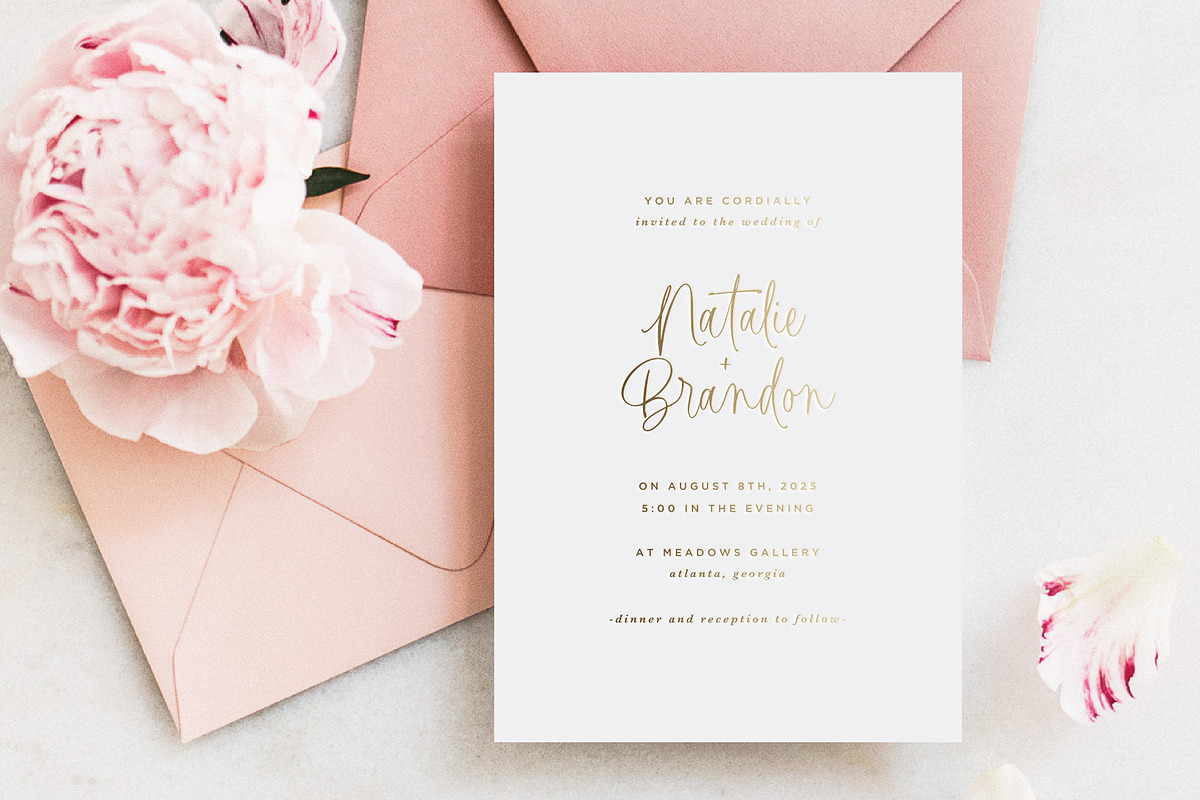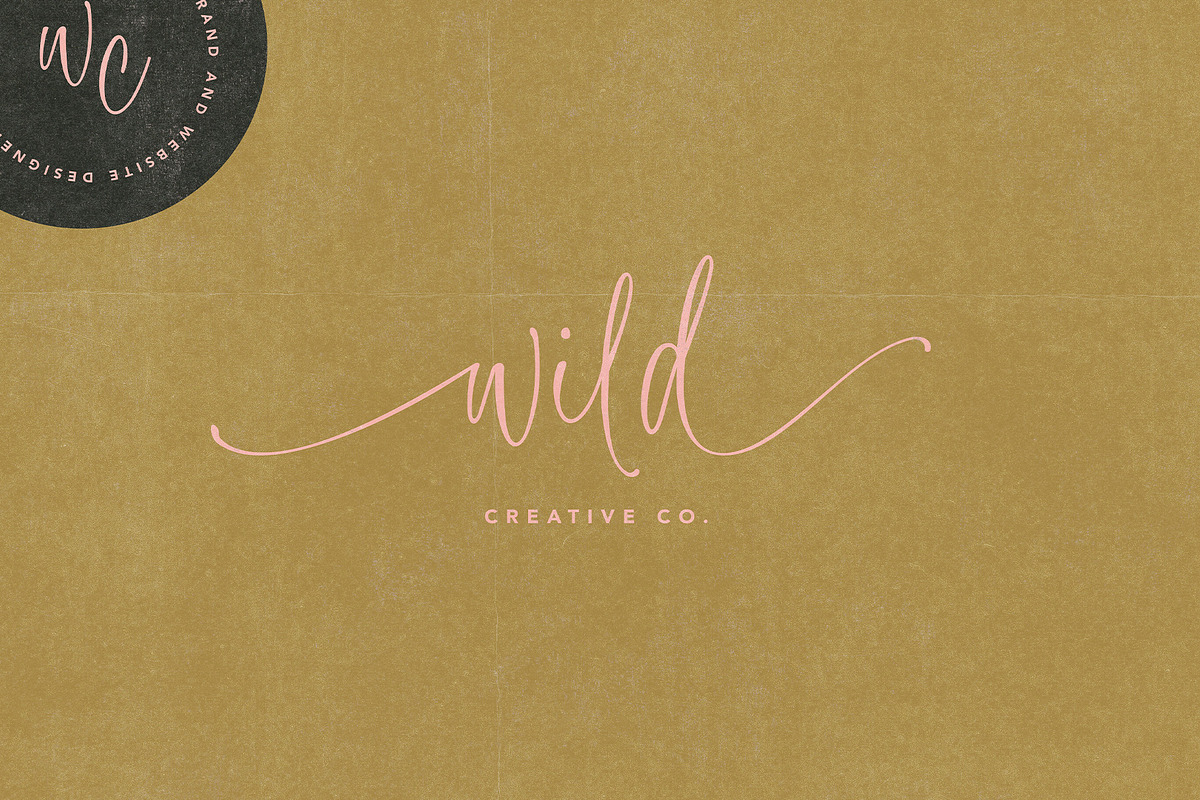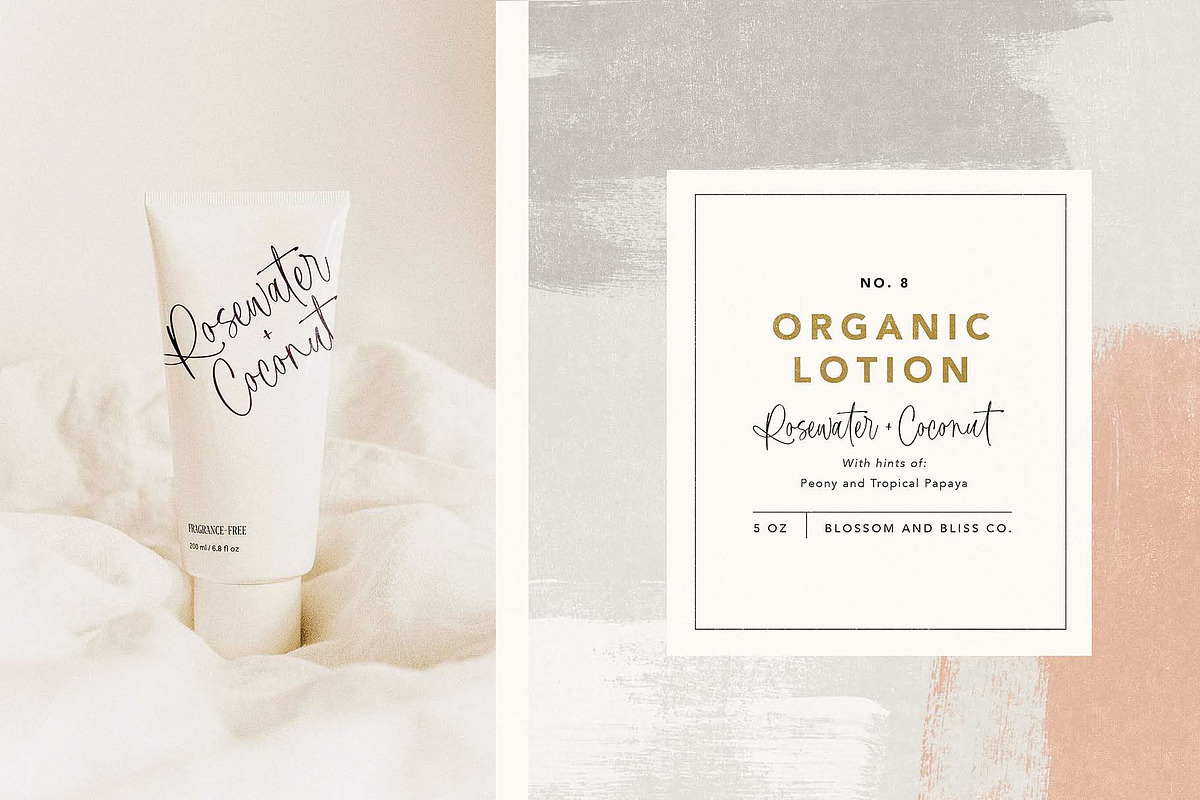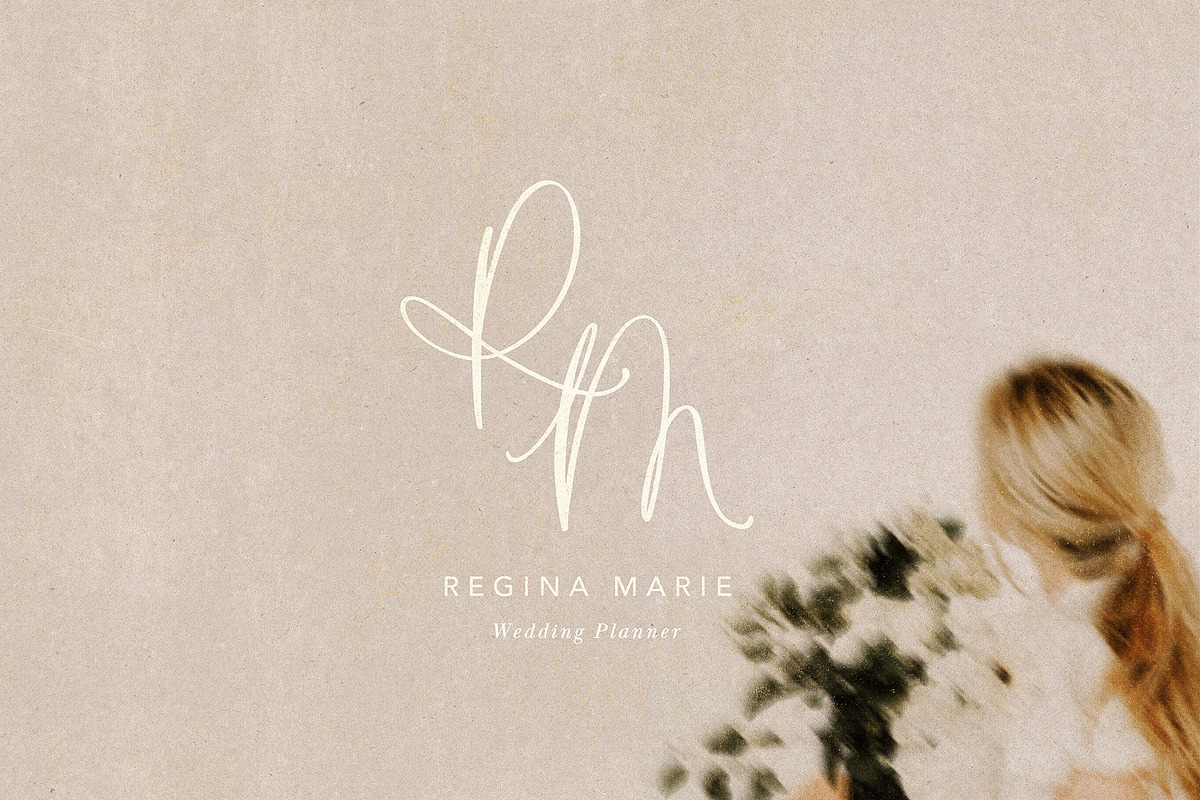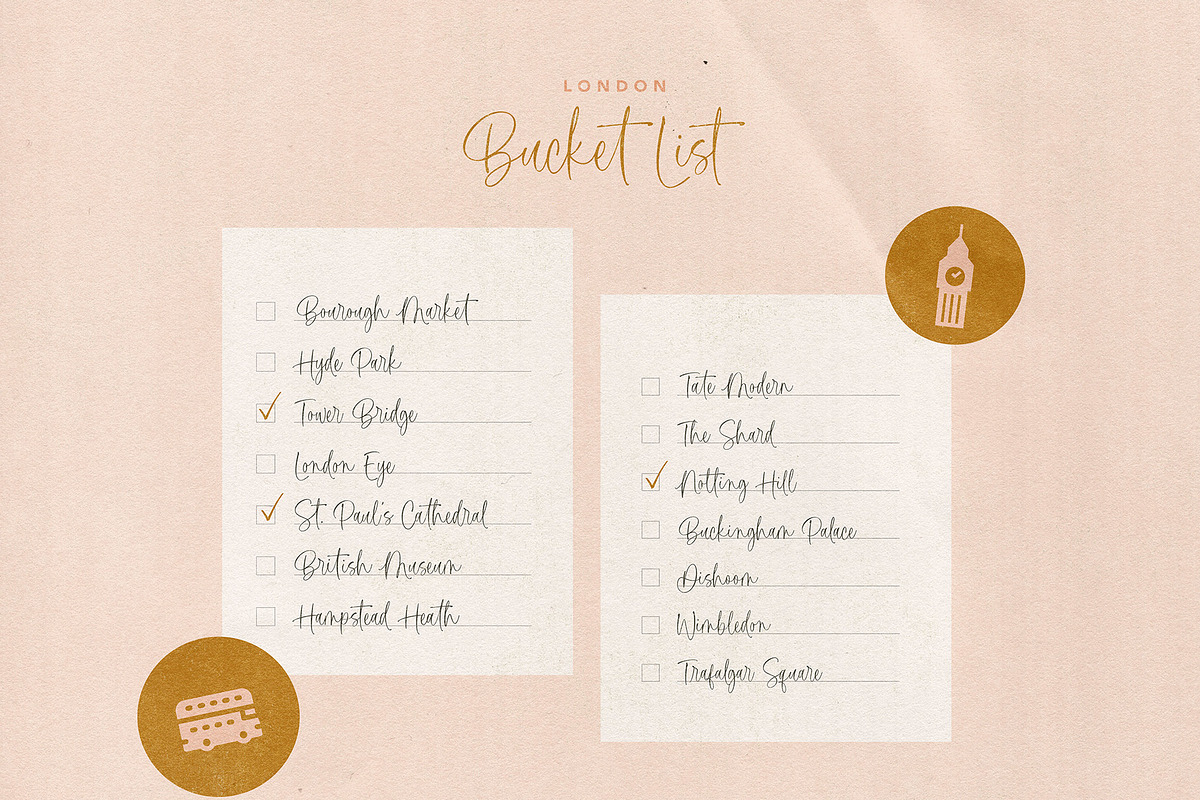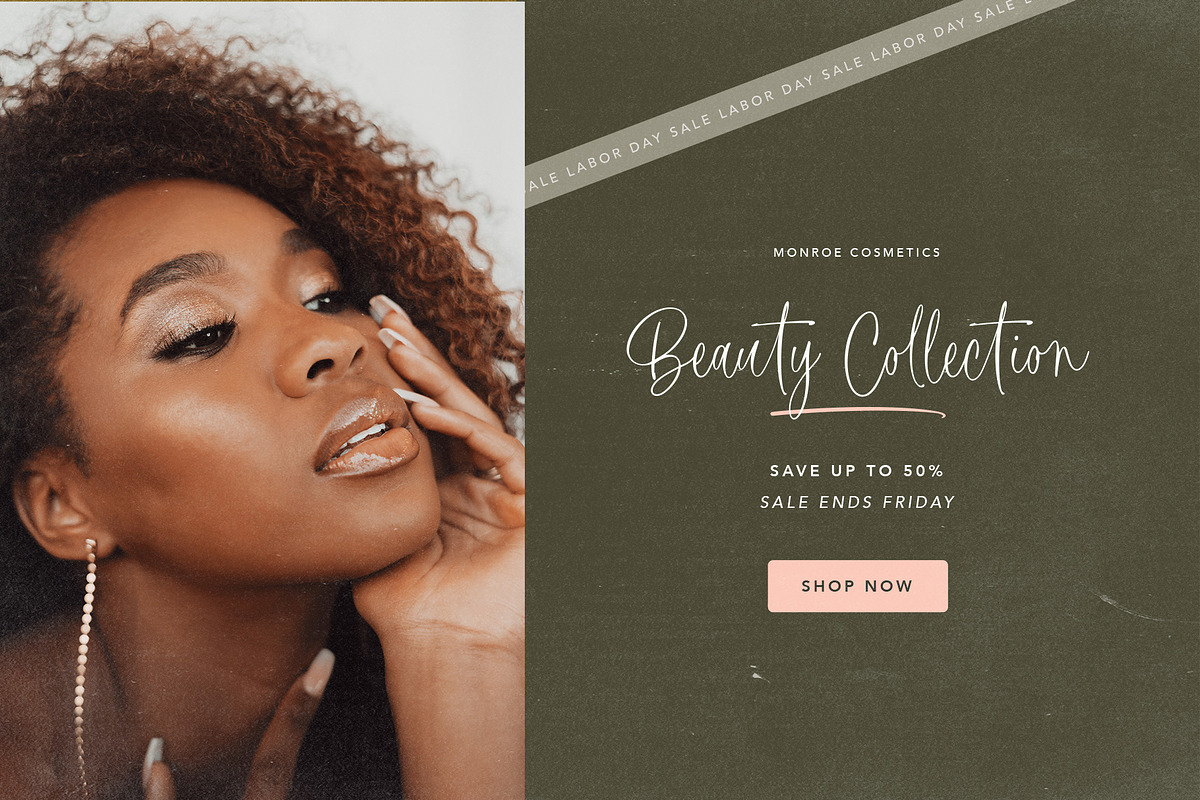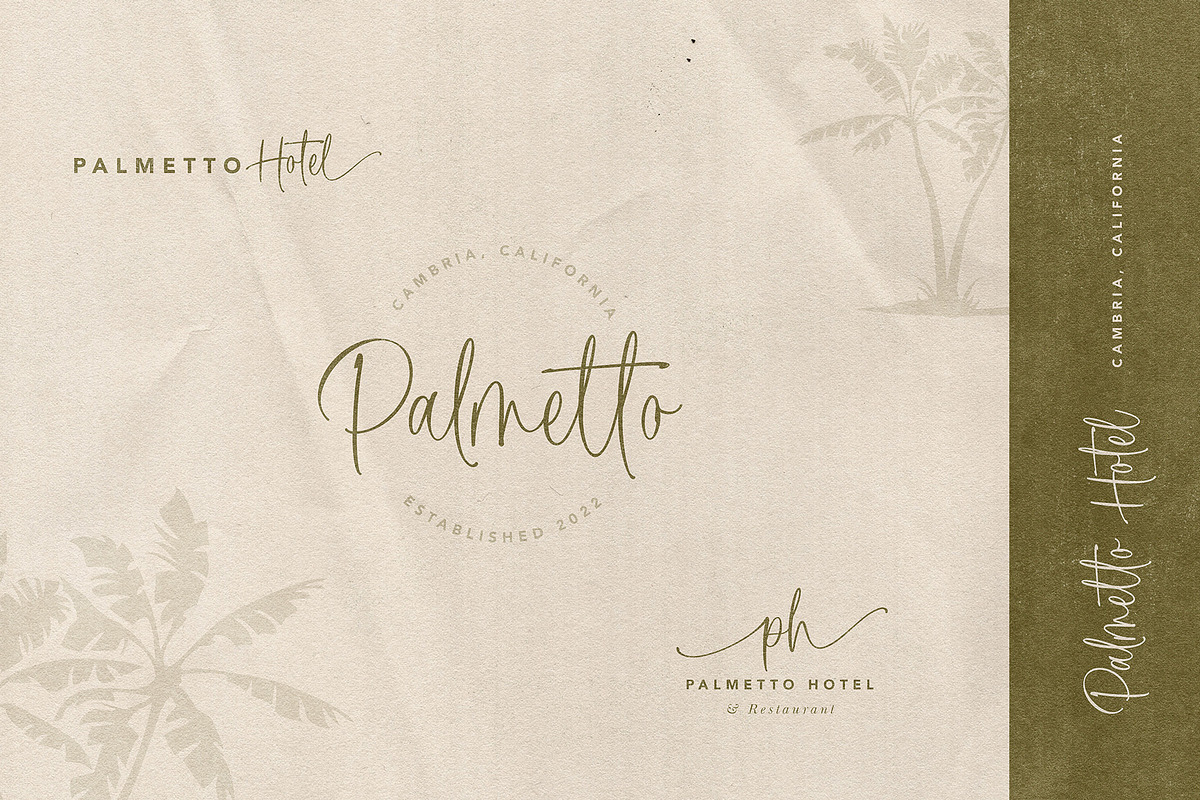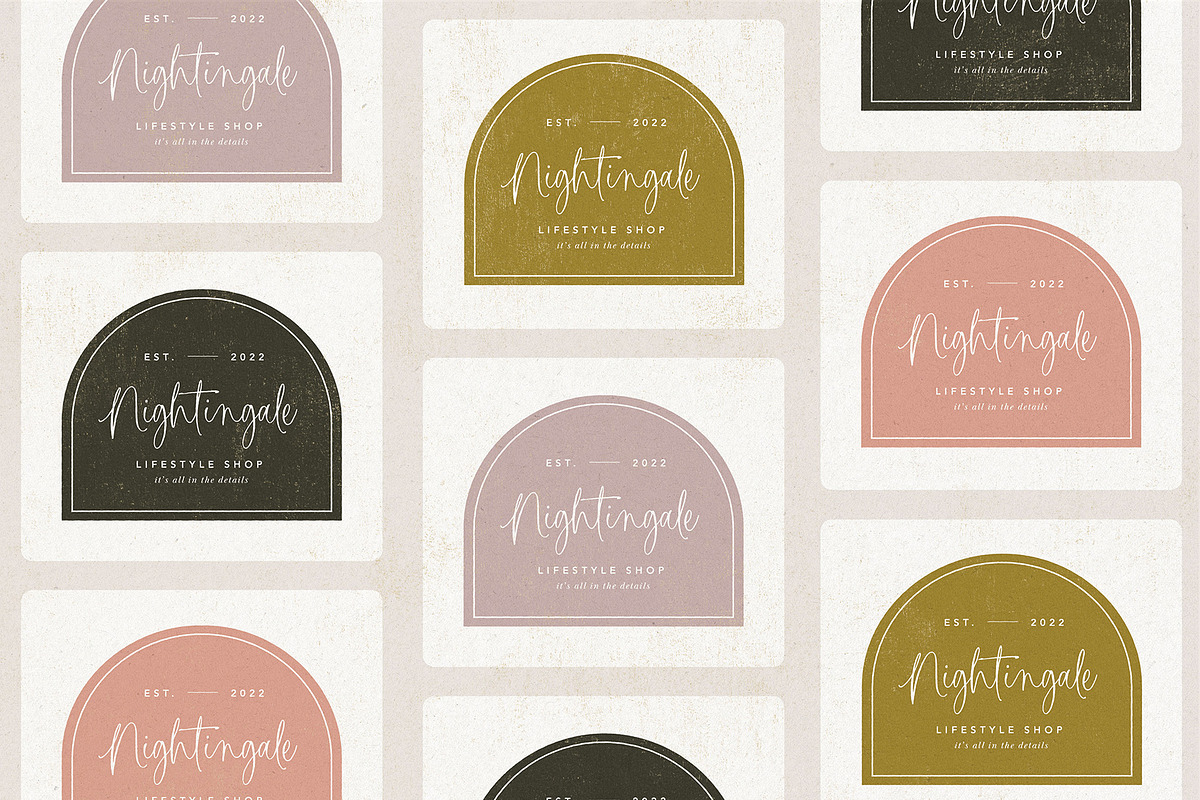
Montlake Road Script Font
Introducing the oh-so-lovely Montlake Road Script Font. This font was made to be a carefree and handwritten font with a romantic and feminine flare. Montlake Road has opentype ligatures that help give your project a natural handwritten look (make sure your ligature option is turned on in your OpenType panel). You can also add swashes to all lowercase letters for that extra added detail. In addition, there's a few alternates sprinkled in :) All swashes are PUA encoded for your convenience.
This font is perfect for logos, websites, labels, invitations, or branding for any project.
This font was paired with the ever-classic Avenir font (sans-serif) and Baskerville font (serif) in the product images.